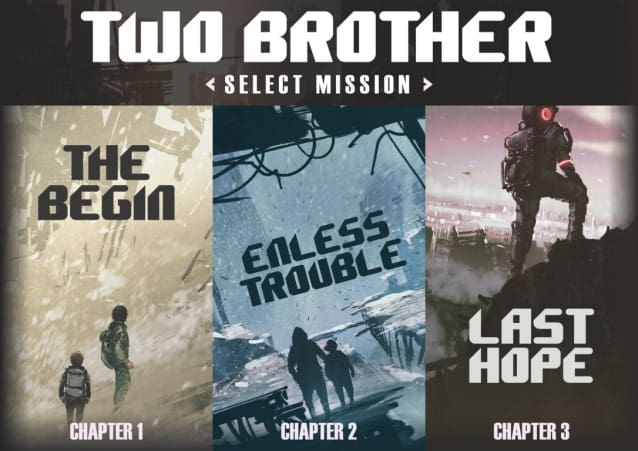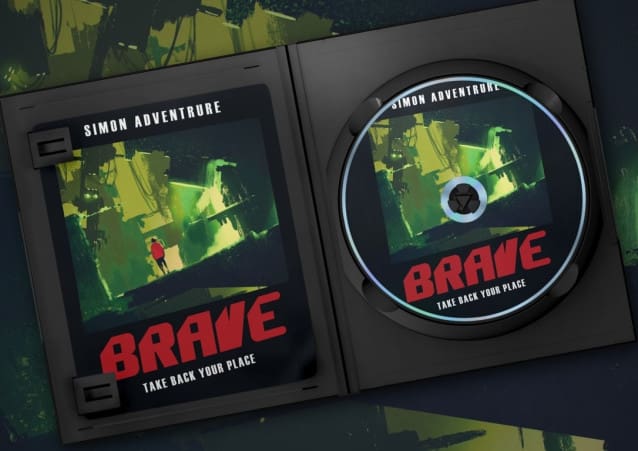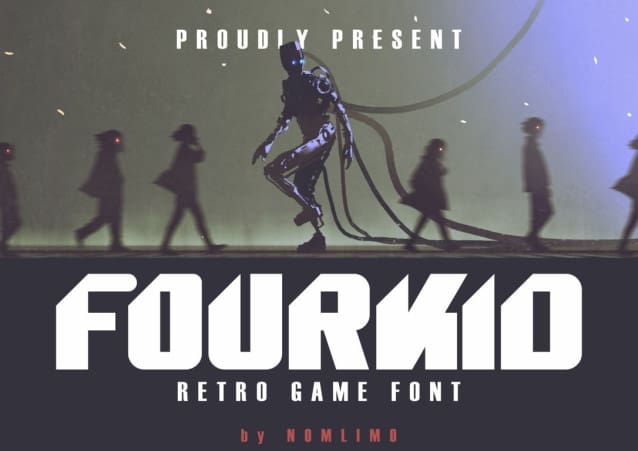
Fourkid Font
Fourkid Font, a retro display font that embodies boldness and impact in design. Drawing inspiration from futuristic aesthetics, Fourkid showcases a dynamic and versatile style that seamlessly blends retro and modern elements. Unleash your imagination with Fourkid and experience the powerful presence it brings to your designs. Whether you’re working on branding, posters, advertisements, or any other design endeavor, let Audere elevate your work with its retro-modern allure.